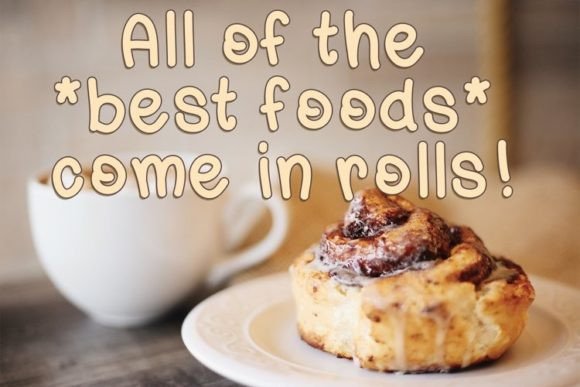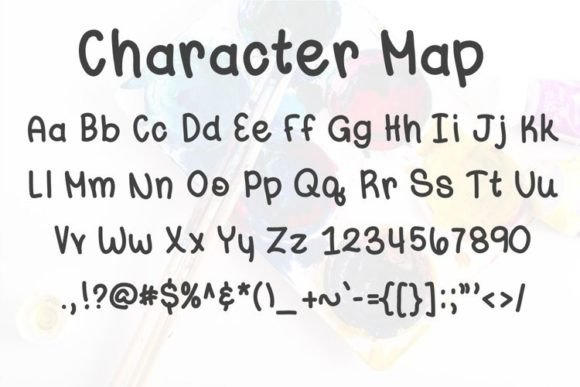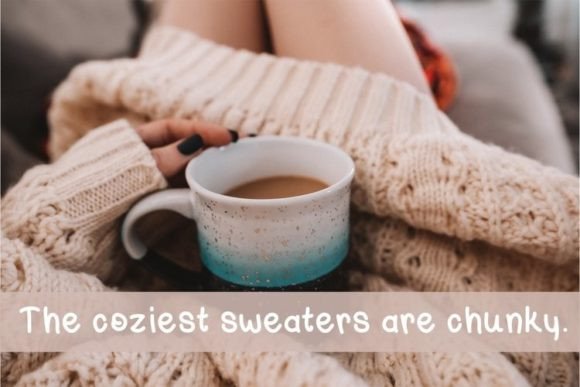
Introducing Chunky Monkey Font: The Fun and Friendly Handwritten Font You Need
Are you tired of using the same old fonts in your designs? Do you want to add a touch of whimsy and quirkiness to your projects? Look no further than Chunky Monkey Font, a fun and friendly handwritten font that’s sure to brighten up your designs. In this article, we’ll take a closer look at Chunky Monkey Font, its features, and how you can use it to take your designs to the next level.
What is Chunky Monkey Font?
Chunky Monkey Font is a handwritten font that’s perfect for designers and crafters who want to add a personal touch to their projects. This font is whimsical, quirky, and fun, making it ideal for a wide range of designs, from invitations and greeting cards to posters and social media graphics.
Features of Chunky Monkey Font
So, what makes Chunky Monkey Font so special? Here are just a few of its key features:
- Handwritten style: Chunky Monkey Font has a warm, handwritten style that’s perfect for creating personal and engaging designs.
- Whimsical and quirky: This font has a playful, carefree vibe that’s sure to add a touch of whimsy to your designs.
- Easy to read: Despite its chunky, irregular style, Chunky Monkey Font is surprisingly easy to read, making it perfect for use in a wide range of designs.
- Versatile: Chunky Monkey Font can be used in a wide range of designs, from digital projects to print materials.
How to Use Chunky Monkey Font in Your Designs
Now that we’ve covered the features of Chunky Monkey Font, let’s take a look at how you can use it in your designs. Here are a few ideas to get you started:
- Invitations and greeting cards: Chunky Monkey Font is perfect for creating fun and playful invitations and greeting cards for special occasions.
- Social media graphics: Add a touch of personality to your social media graphics with Chunky Monkey Font, perfect for creating engaging posts and stories.
- Posters and flyers: Use Chunky Monkey Font to create eye-catching posters and flyers for events, promotions, and more.
- Crafting projects: Chunky Monkey Font is also perfect for crafters, who can use it to add a personal touch to their DIY projects, such as scrapbooking and journaling.
Tips for Getting the Most Out of Chunky Monkey Font
To get the most out of Chunky Monkey Font, here are a few tips to keep in mind:
- Experiment with colors: Chunky Monkey Font looks great in a wide range of colors, so don’t be afraid to experiment and find the perfect hue for your design.
- Mix and match: Try pairing Chunky Monkey Font with other fonts to create a unique and eye-catching design.
- Play with size: Chunky Monkey Font looks great in a variety of sizes, from large and bold to small and subtle.
In conclusion, Chunky Monkey Font is a fun and friendly handwritten font that’s perfect for designers and crafters who want to add a touch of whimsy and quirkiness to their projects. With its easy-to-read style, versatile design, and wide range of uses, Chunky Monkey Font is sure to become a favorite in your design toolkit. So why not give it a try and see the difference it can make in your designs?